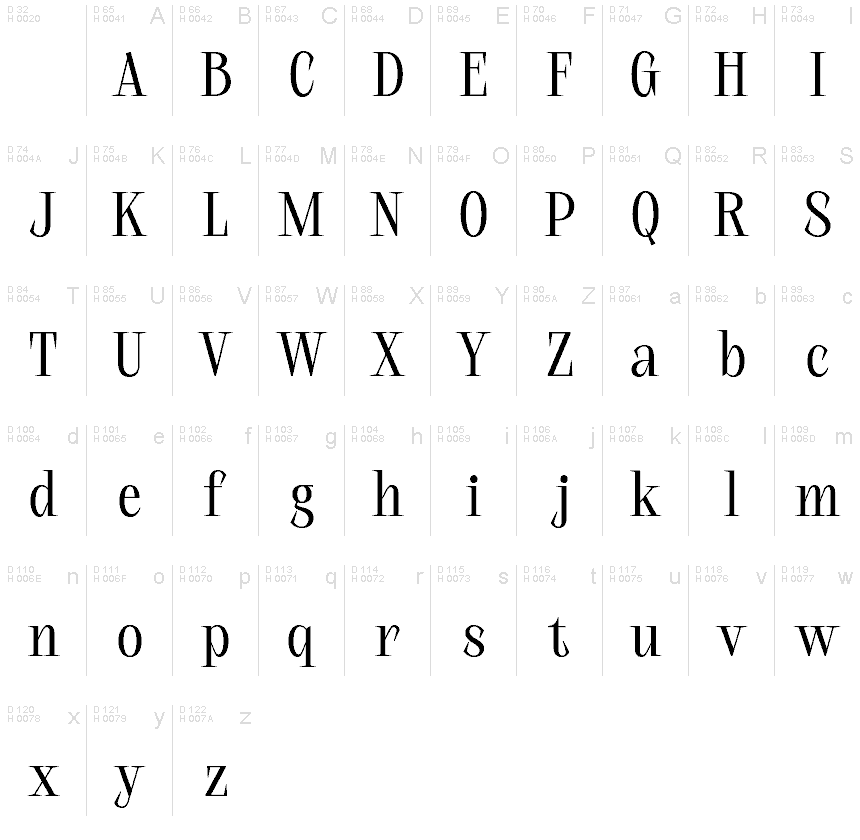
CS Alessia Regular Demo
CS Alessia font by Craft Supply Co. is a regal condensed serif font with round terminals and horizontal stems and strokes. Its steep curves and subtle width variations add to its elegance while allowing it to conquer any layout in which it’s used.
Print it on wedding invitations, business cards, special occasion cards, webs, or app designs. Use it at packaging design for cosmetics where both images and text are of equal importance or refine your brochures’ projects with a formal touch that’ll transfer visually.